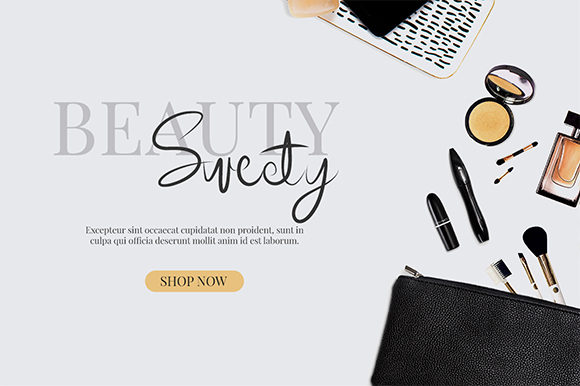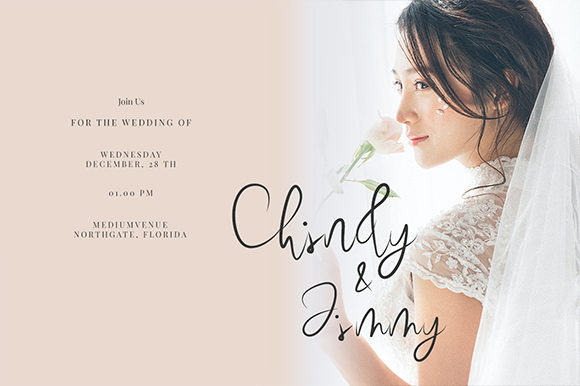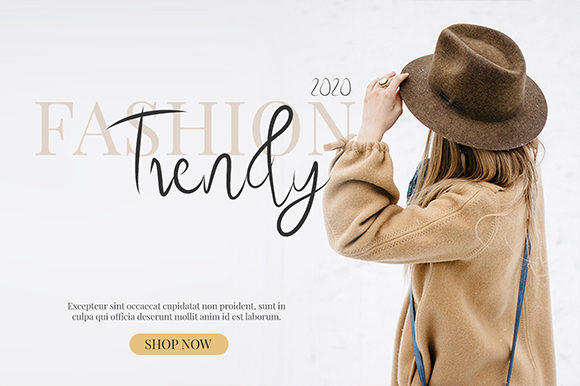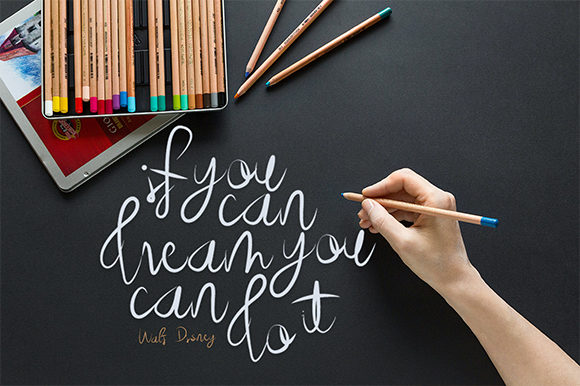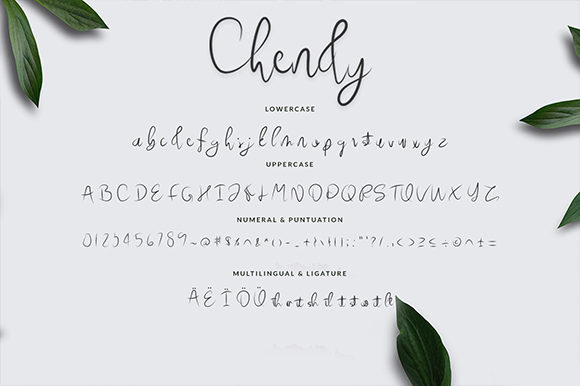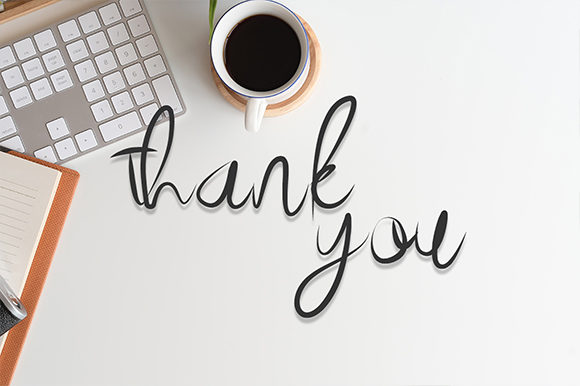
Introducing Chendy Font: The Perfect Companion for Your Creative Projects
Are you on the lookout for a font that exudes warmth, friendliness, and a touch of playfulness? Look no further than Chendy Font, a delightful handwritten font designed to bring a smile to your audience’s faces. In this article, we’ll dive into the world of Chendy, exploring its features, uses, and benefits for designers, crafters, and DIY enthusiasts.
The Charm of Chendy Font
Chendy is a cute and casual handwritten font with a very friendly feel. Its unique charm lies in its ability to convey a sense of approachability and warmth, making it perfect for projects that require a personal touch. Whether you’re designing a logo, creating social media content, or working on a crafty DIY project, Chendy Font is an excellent choice.
Key Features of Chendy Font
- Cute and Casual: Chendy Font boasts a playful, informal vibe that’s sure to capture your audience’s attention.
- Handwritten: The font’s handwritten nature gives it a personal, human touch that’s perfect for creating emotional connections.
- Versatile: Chendy Font is suitable for a wide range of projects, from logos and branding to social media graphics and DIY crafts.
- Easy to Read: The font’s clear, legible design ensures that your message is conveyed effectively, even at smaller font sizes.
Using Chendy Font for Logos and Branding
When it comes to creating a logo or establishing a brand identity, the font you choose can make all the difference. Chendy Font is an excellent option for businesses and individuals looking to create a friendly, approachable brand image. Its unique character and playful feel can help you stand out in a crowded market and build a strong emotional connection with your audience.
Chendy Font for Social Media and DIY Projects
In the world of social media, visual content reigns supreme. Chendy Font can help you create engaging, eye-catching graphics that showcase your personality and style. Additionally, crafters and DIY enthusiasts will love using Chendy Font for their handmade projects, such as craft tutorials, journaling, and scrapbooking.
Benefits of Using Chendy Font
- Unique Identity: Chendy Font helps you create a distinctive visual identity that sets you apart from others.
- Emotional Connection: The font’s friendly, approachable nature helps build a strong emotional connection with your audience.
- Versatility: Chendy Font can be used across various platforms and projects, making it a valuable addition to your design toolkit.
Tips for Getting the Most Out of Chendy Font
- Experiment with Colors: Pair Chendy Font with bright, bold colors to create visually striking graphics.
- Mix and Match: Combine Chendy Font with other fonts to create unique, eye-catching typography.
- Play with Size: Use Chendy Font in various sizes to create visual hierarchy and add emphasis to your message.
Chendy Font is a delightful handwritten font that’s perfect for designers, crafters, and DIY enthusiasts looking to add a touch of warmth and friendliness to their projects. With its unique charm, versatility, and ease of use, Chendy Font is sure to become a staple in your design toolkit. So why wait? Download Chendy Font today and start creating engaging, memorable content that resonates with your audience!